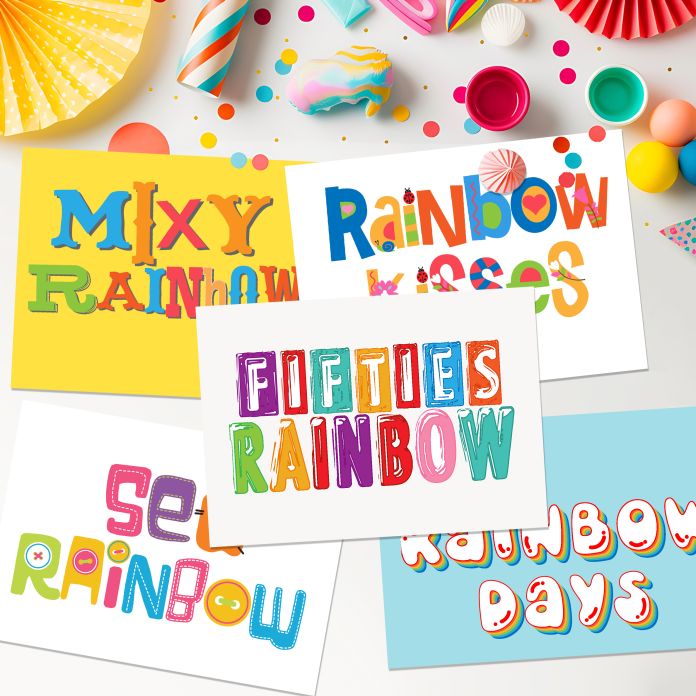
This full-color font bundle features five font full-color fonts in a rainbow color palette. There is an alt case with an additional color of each letter. These fonts works best for titles, displays, posters and more. Please note color fonts will show as black in non compatible programs. These font types are compatible with Silhouette Studio.